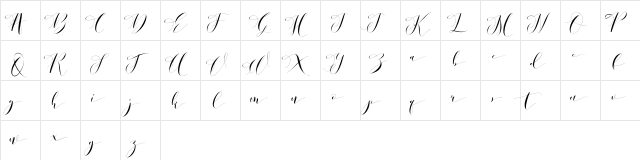
Donita Handscript Demo Regular
Design Context for Donita Handscript Demo Typeface
Donita Handscript Demo brings a calligraphic fluidity to the page — its connecting strokes and expressive curves give it an unmistakably human quality.
Font Pairing: Combine Donita Handscript Demo with a simple geometric sans for maximum contrast — the tension between flowing curves and clean structure is a classic typographic pairing.